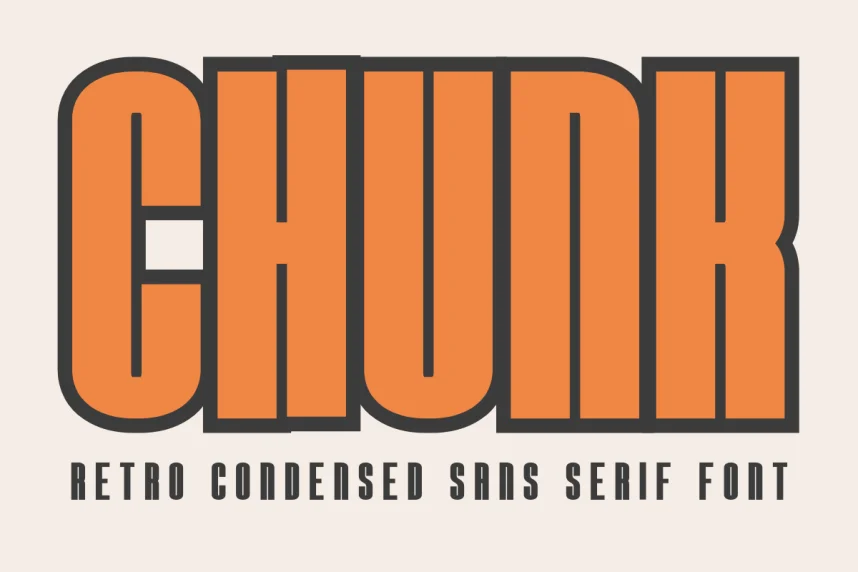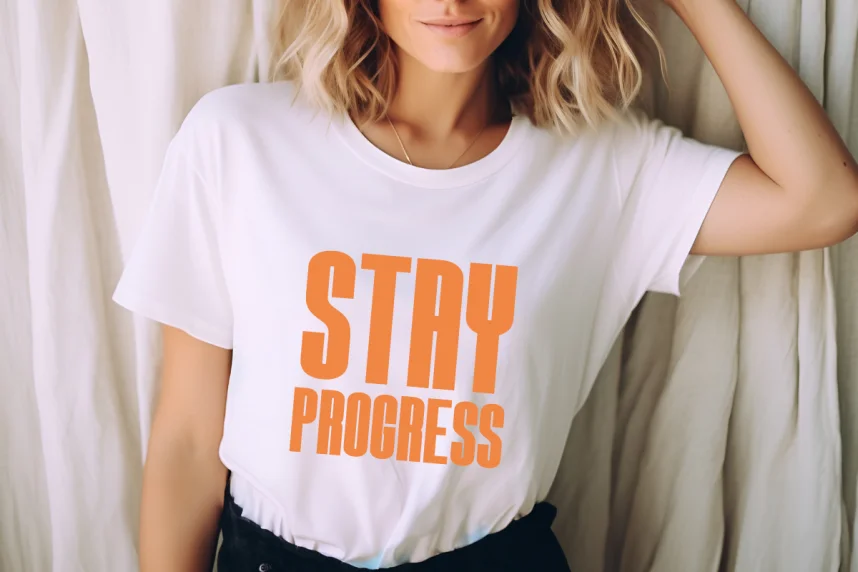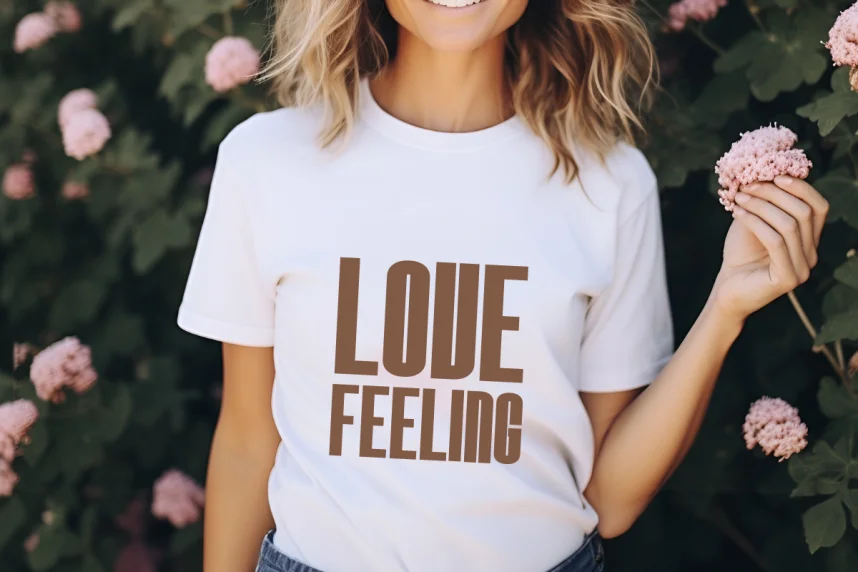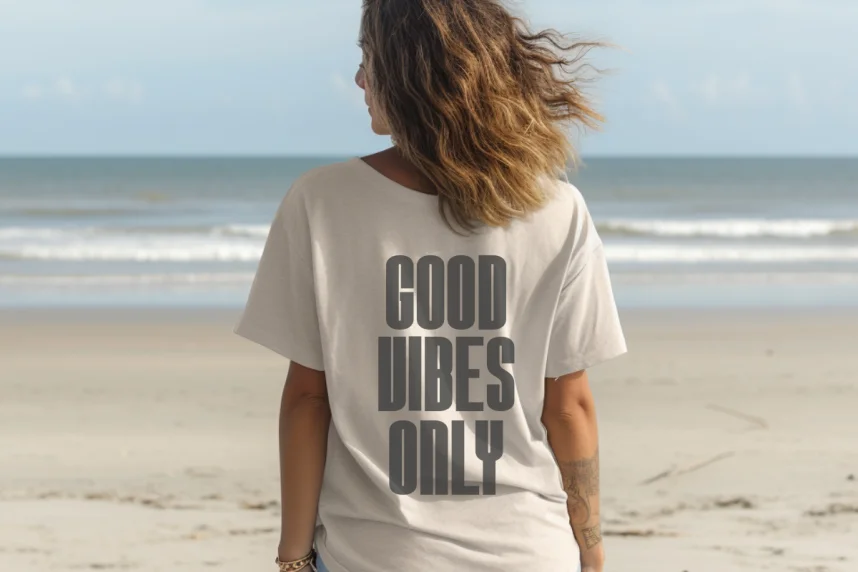
Chunk Condensed Font is a bold, condensed typeface designed for attention-grabbing headlines and posters. Its thick strokes and tight letter spacing make it perfect for designs that need to stand out while maintaining readability in limited space.
Ideal for use in advertising, event promotions, and logo design, Chunk Condensed Font pairs well with simple, clean fonts for body text. Available in TTF and OTF formats, it includes a commercial-use license. Be sure to review the license before using it commercially.